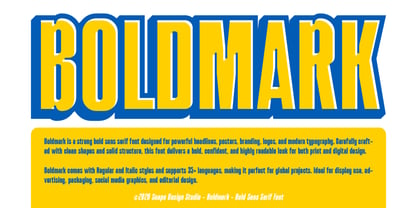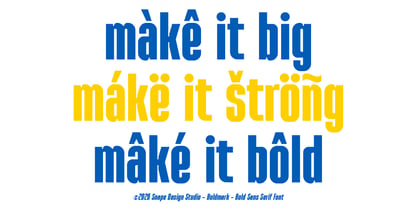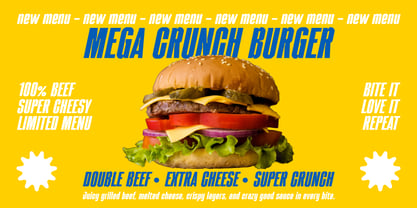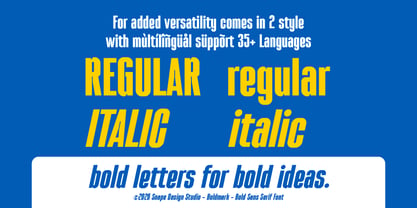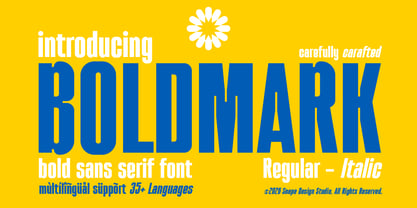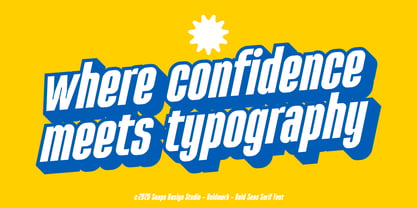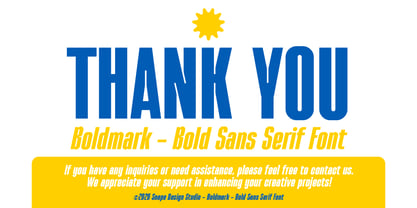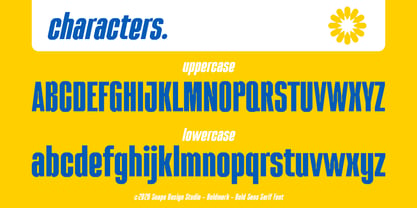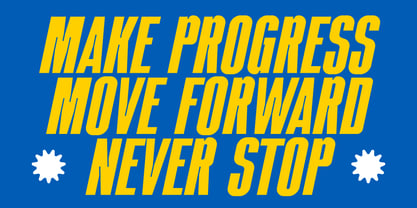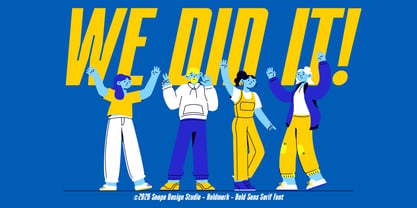
Boldmark
by snapedsgn
The Boldmark Font Family was designed by Ario Sabrang and published by snapedsgn. Boldmark contains 2 styles and family package options. More about this family
Boldmark is a strong bold sans serif font designed for powerful headlines, posters, branding, logos, and modern typography. Carefully crafted with clean shapes and solid structure, this font delivers a bold, confident, and highly readable look for both print and digital design. Boldmark comes with Regular and Italic styles and supports 35+ languages, making it perfect for global projects. Ideal for display use, advertising, packaging, social media graphics, and editorial design. Features: Bold Sans Serif Style Regular & Italic Multilingual Support (35+ languages) Uppercase & Lowercase Numbers & Punctuation Clean & Strong Letterforms Perfect for Headlines, Posters, Logos, Branding, Packaging, and Display Design If you have any inquiries or need assistance, please feel free to contact us. We appreciate your support in enhancing your creative projects! Best Regards, Snape Design Studio.
Designers: Ario Sabrang
Current Foundry: snapedsgn